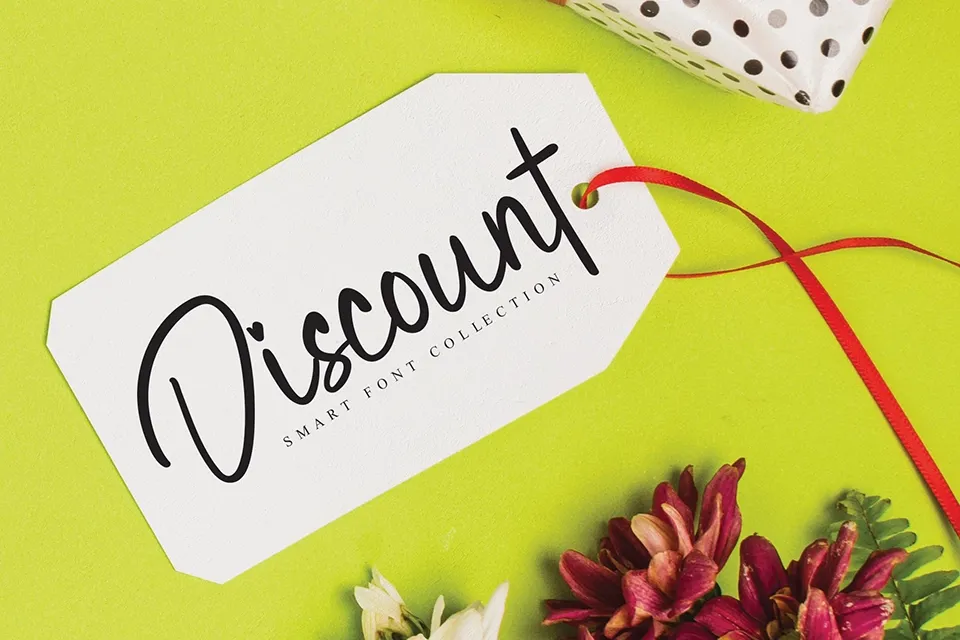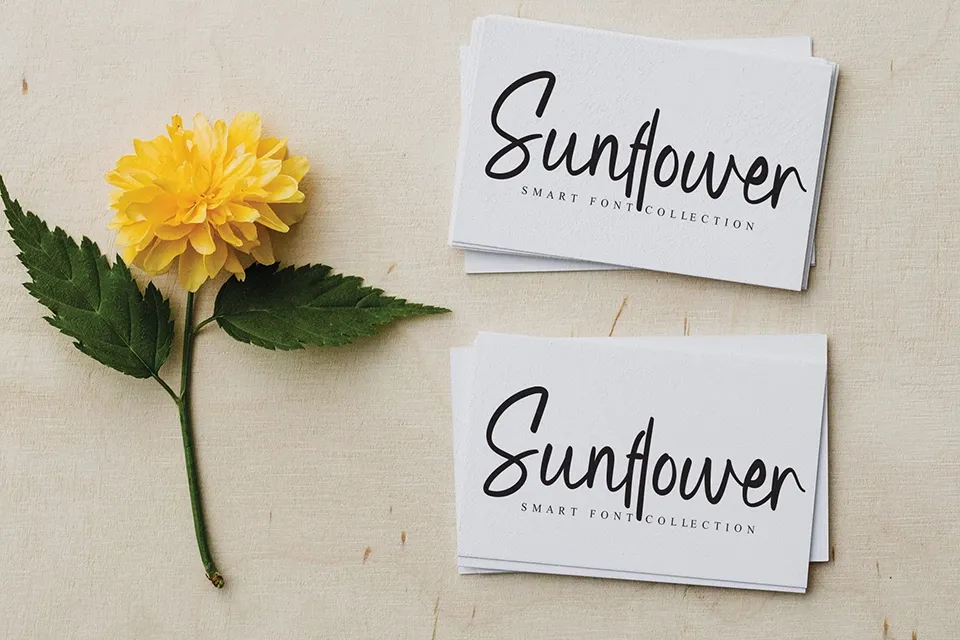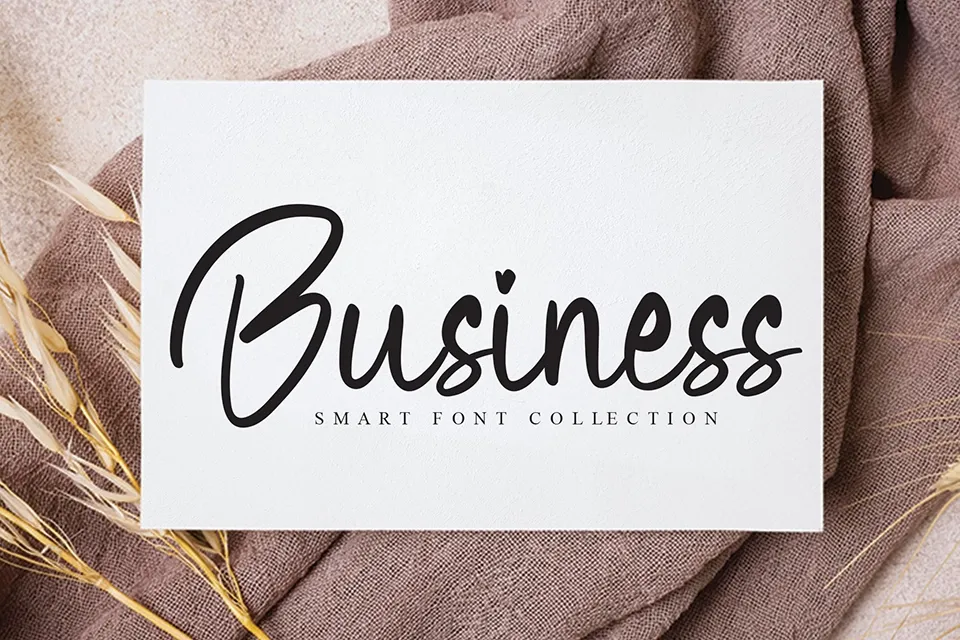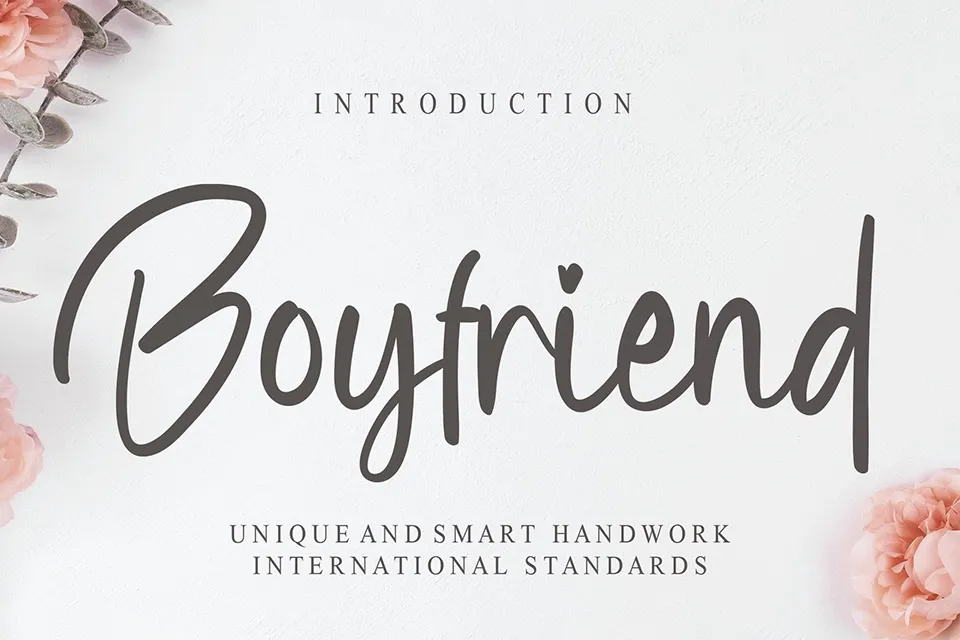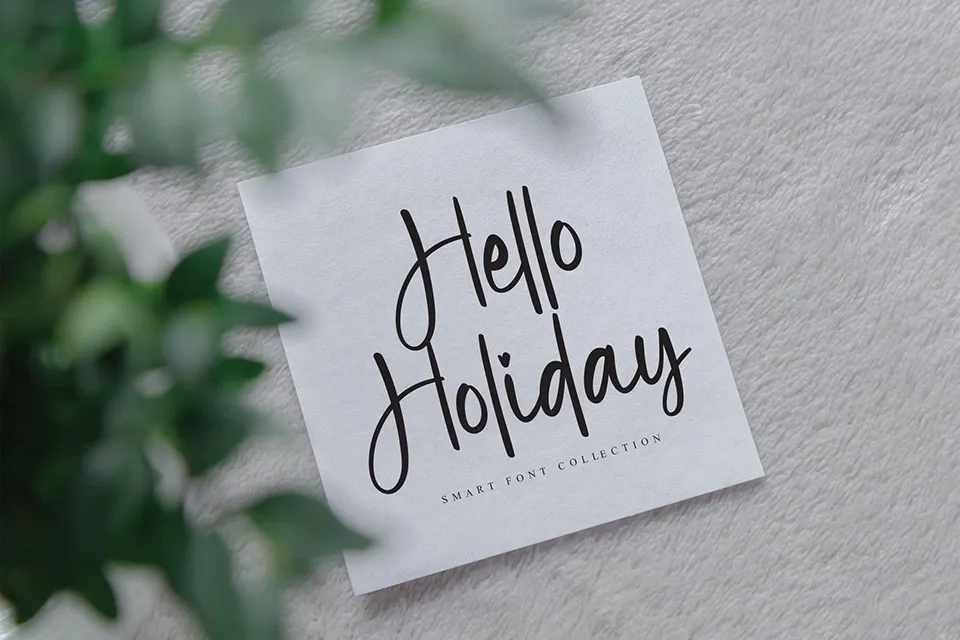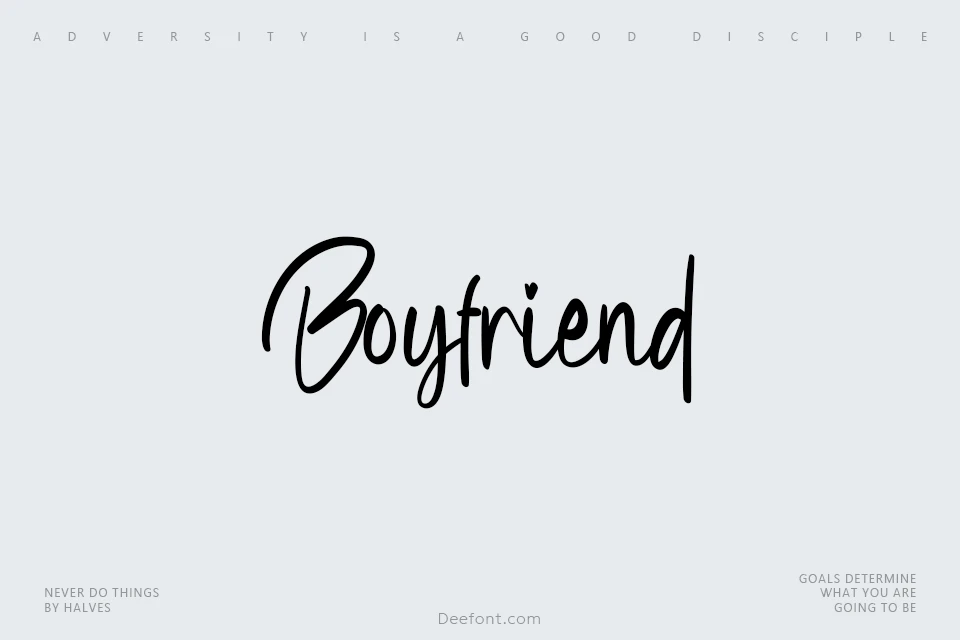
Boyfriend Script Font
Boyfriend Script Font is a charming and stylish handwritten typeface designed to bring a personal and romantic touch to your projects. Its smooth curves, playful strokes, and subtle heart accents create a warm and inviting aesthetic that is perfect for wedding invitations, greeting cards, branding, and social media designs. The font’s unique craftsmanship combines elegance with a casual feel, making it versatile for both formal and relaxed settings. Boyfriend Script embodies creativity and individuality, ensuring your text stands out with personality and flair. Add a touch of love and sophistication to your designs with this delightful script font.